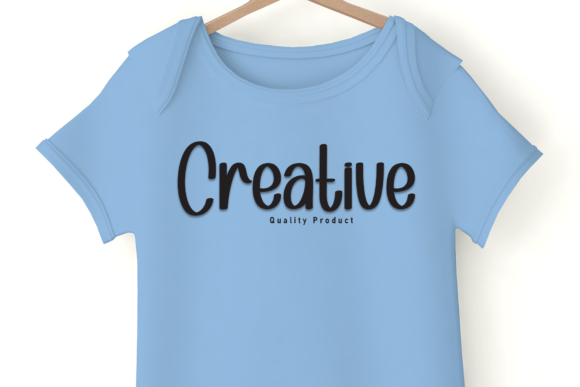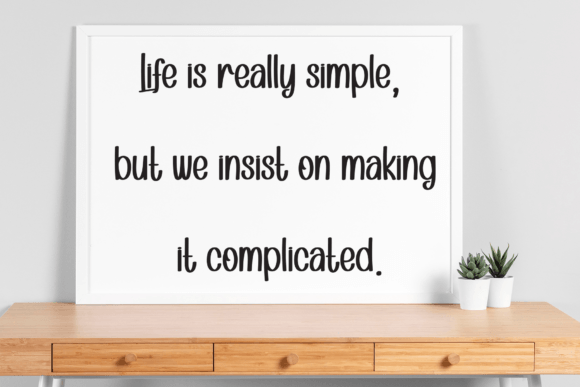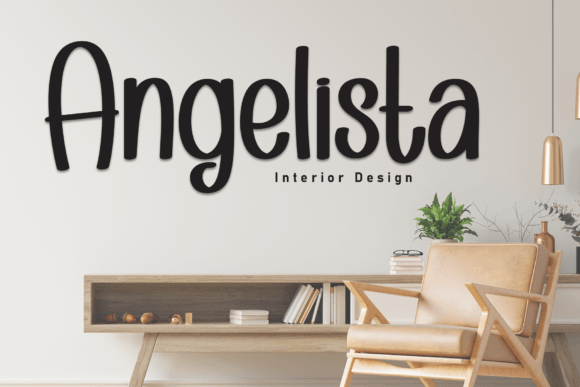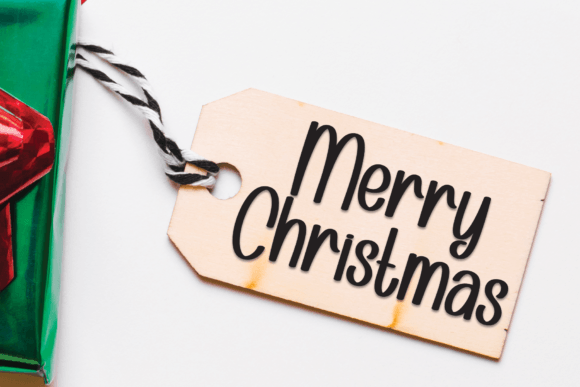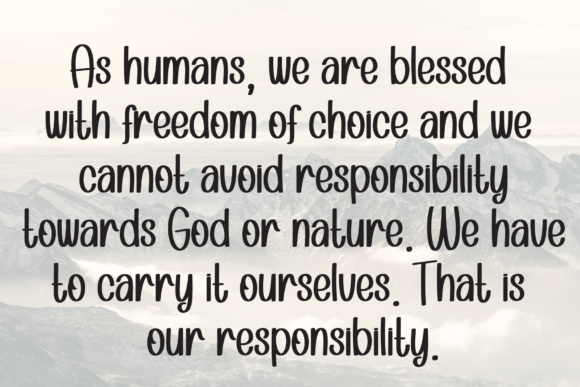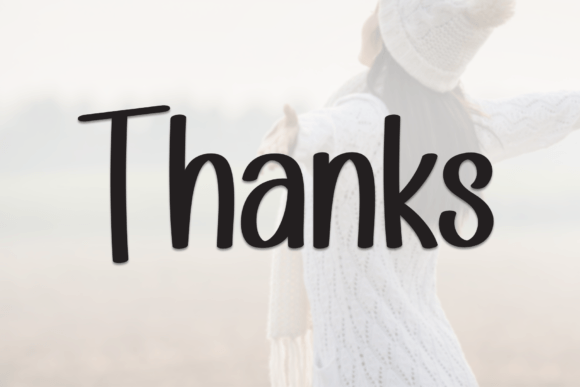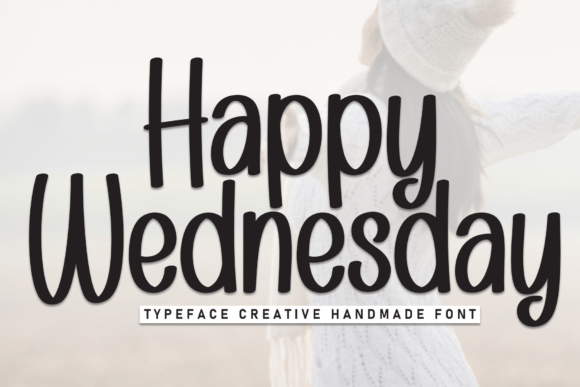
Introducing Happy Wednesday Font: The Sweet and Friendly Handwritten Font
Are you tired of using the same old fonts in your designs? Look no further! Happy Wednesday Font is a beautiful, sweet, and friendly handwritten font that’s perfect for adding a personal touch to your creations. Its natural and unique style makes it incredibly versatile, and the only limit is your imagination!
What makes Happy Wednesday Font special?
Happy Wednesday Font is a one-of-a-kind handwritten font that’s designed to bring a smile to your face. Its sweet and friendly style is perfect for a wide range of designs, from wedding invitations and party decorations to social media graphics and blog posts. The font’s natural and unique style gives it a personal touch that’s hard to find in more traditional fonts.
Happy Wednesday Font is a dream come true for designers and crafters who are looking for a font that can help them stand out from the crowd. Whether you’re creating custom stationery, designing a logo, or crafting a social media graphic, this font is sure to impress. Its versatility and charm make it perfect for a wide range of projects, including:
- Wedding invitations and decorations
- Party invitations and decorations
- Blog posts and articles
- Custom stationery and cards
- Logo design and branding
Why Choose Happy Wednesday Font?
There are many reasons why Happy Wednesday Font is the perfect choice for your next design project. Here are just a few:
- Unique and eye-catching: Happy Wednesday Font is a one-of-a-kind font that’s sure to grab attention.
- Versatile: The font’s natural and unique style makes it perfect for a wide range of designs and projects.
- Easy to read: Despite its unique style, Happy Wednesday Font is easy to read and understand.
- Customizable: The font can be customized to fit your specific design needs.
- Experiment with different sizes and colors: Happy Wednesday Font looks great in a variety of sizes and colors.
- Pair it with other fonts: Happy Wednesday Font pairs well with other fonts, such as sans-serif fonts and script fonts.
- Use it for headings and titles: Happy Wednesday Font is perfect for headings and titles, but it can also be used for body text.
Happy Wednesday Font is a sweet and friendly handwritten font that’s perfect for designers and crafters who are looking for a unique and versatile font. Its natural and unique style makes it incredibly fitting to a large pool of designs, and the only limit is your imagination! Whether you’re creating custom stationery, designing a logo, or crafting a social media graphic, Happy Wednesday Font is sure to impress.